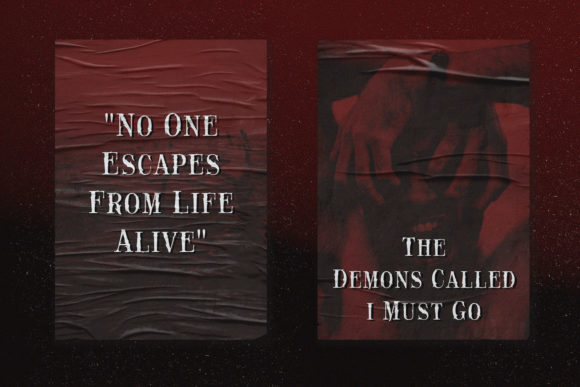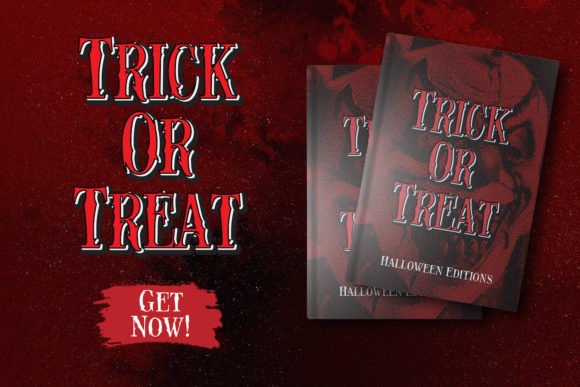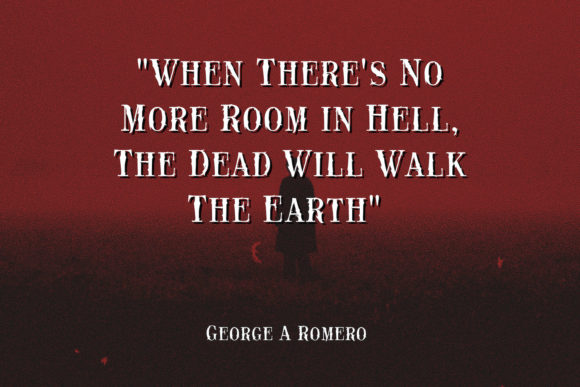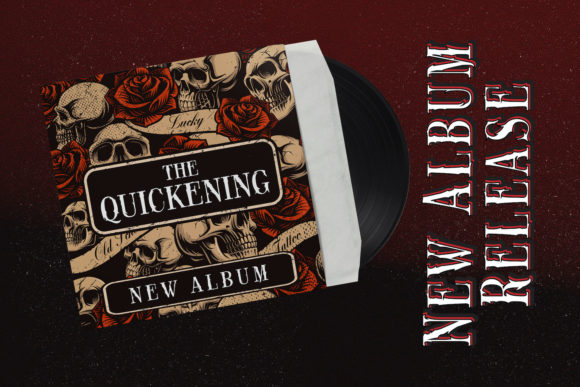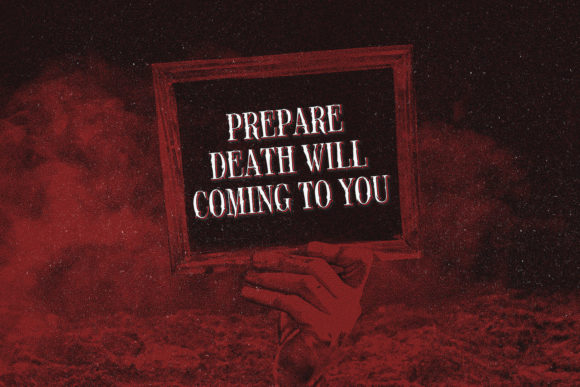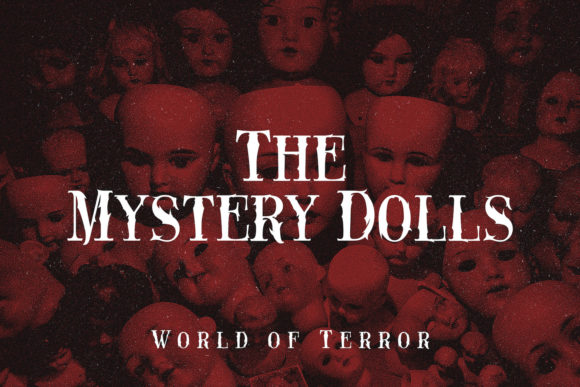
The Perfect Font for a Spooky Night: Black Rose Font
As a designer, you’ve probably found yourself staring at a blank canvas, struggling to find the perfect font to bring your creative vision to life. And then, it hits you – a spark of inspiration that sets your imagination ablaze. For those who love the darker side of design, the Black Rose Font is the perfect catalyst to unleash your inner creativity.
This unique display font is specifically designed to evoke a spooky feel, making it an ideal choice for any project that requires a horror theme. From movie posters to Halloween crafting, the Black Rose Font is the perfect tool to add a touch of eeriness to your designs.
Black Rose Font Key Features
- Unique Characteristics: The Black Rose Font is known for its elegant, gothic-inspired design with intricate details and subtle flourishes, making it perfect for formal and luxury branding.
- Font Family: The font family includes multiple weights, from Light to Bold, allowing for versatility in typography and design applications.
Designer Review: Black Rose Font
Overall, I think the Black Rose Font is a beautiful and elegant font that could be a great addition to any project. ✨ The intricate details and floral patterns make it perfect for creating a sense of luxury and sophistication.
- ✨ Unique and intricate details that set it apart from other fonts
- ✨ Versatile and can be used for a variety of projects, from invitations to logos
- ✨ High-quality and well-designed, with a clear and readable font face
- ⚠️ May be difficult to read in certain contexts, such as in small sizes or with low contrast backgrounds
- ⚠️ Limited character set, which may not be suitable for projects that require a wide range of characters
- ⚠️ May not be suitable for projects that require a bold or edgy font face
Overall, I think the Black Rose Font is a beautiful and elegant font that could be a great addition to any project. While it may have some limitations, its unique details and versatility make it a great choice for designers looking to add a touch of luxury and sophistication to their work.
Tips: Use the Black Rose font to create a dramatic and elegant look in your designs. Pair it with bold colors and bold text to make it stand out.
Tips: Use the Black Rose font to create a vintage or romantic look in your designs. Experiment with different font sizes and styles to add depth and interest.
Tips: Use the Black Rose font to add a touch of elegance to your presentations or documents. Use it sparingly to avoid overwhelming the reader.
The Black Rose font is commonly used in:
Valentine’s Day and anniversary designs
Victorian-era inspired designs
Romantic and elegant branding